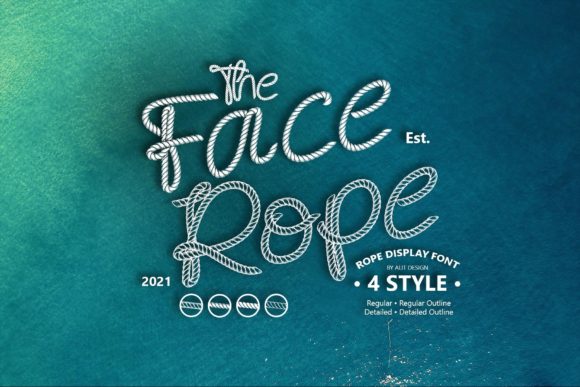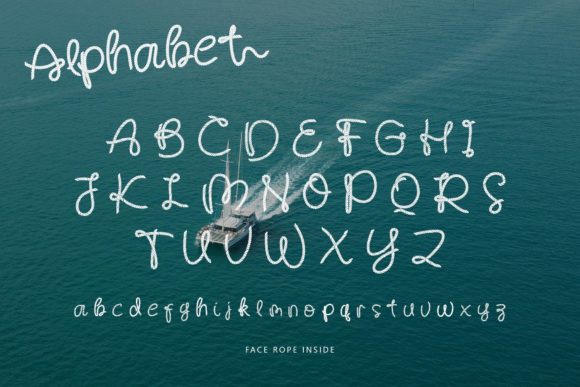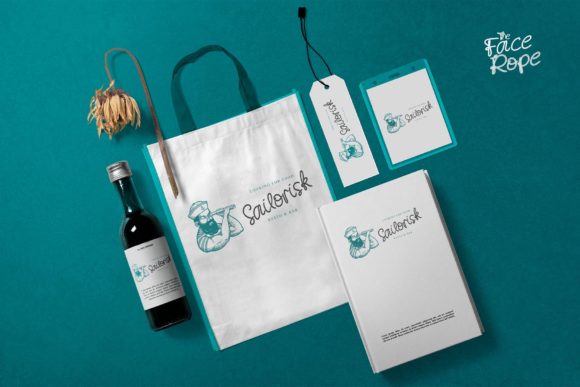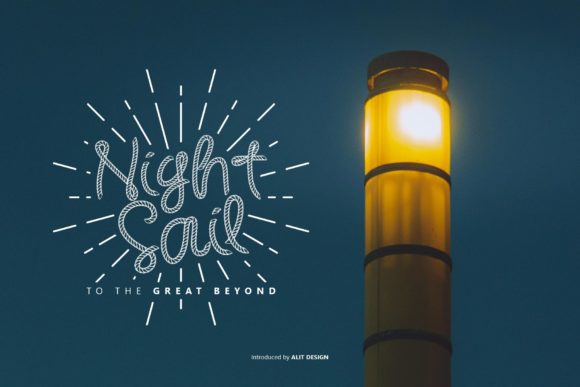
Face Rope Font: Unique Nautical Display Font for Coastal Branding
About the Face Rope Font
Make a bold statement with Face Rope Font, a powerful and memorable font. Face Rope is a cool and interestingly designed display font. Whether you are using it for cartoon-related designs, children’s games, quotes, titles, brand names, book covers, posters, or just any creation that requires a touch of joy, this font is a great choice.
Face Rope’s playful, slightly quirky personality makes it ideal for headlines, short taglines, and branding projects aimed at a younger demographic or those emphasizing fun and approachability. It works exceptionally well on posters, packaging for children’s products, and in cartoon-related designs. However, its unique forms and varying stroke weights make it unsuitable for body text or long paragraphs, negatively impacting readability.
Consider pairing Face Rope with a clean sans-serif like Open Sans for a balanced contrast—the sans-serif provides readability for supporting text while Face Rope retains visual interest in the title. Alternatively, a classic serif like Garamond could create a sophisticated juxtaposition, emphasizing Face Rope’s whimsical nature. Avoid pairing it with other highly stylized or decorative fonts, as this would create visual clutter.
Its bold yet friendly character lends itself well to brands focusing on children’s entertainment, playful lifestyle products, or anything requiring a sense of lighthearted energy.
Face Rope Font Usage Examples
Face Rope Font Example